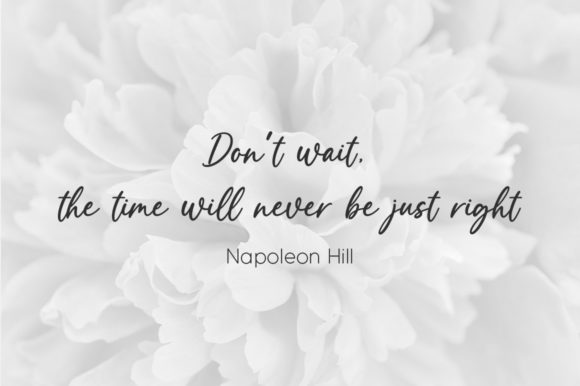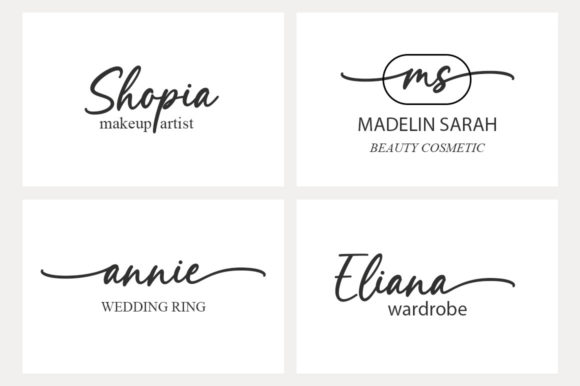
Wellness Font
db-ku.com - Script & Handwritten -- Wellness is a stylish and incredibly elegant script font. This font is PUA encoded which means you can access all of the amazing glyphs and ligatures with ease!